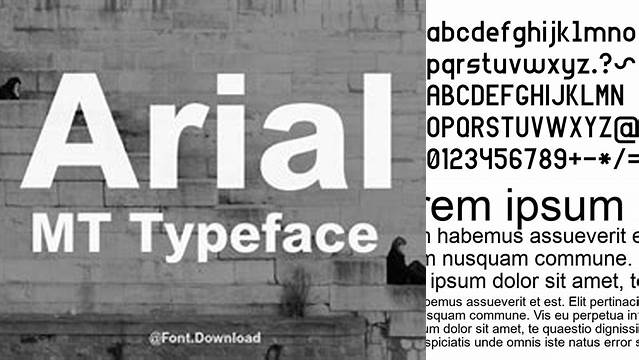
Understanding Arial MT Normal Font: What It Is and Why It's Popular
Hey guys, let's dive deep into the world of fonts, specifically focusing on the Arial MT Normal Font. This isn't just any font; it's a true workhorse in the design world, and chances are you've seen it everywhere, from professional documents to web pages. When we talk about Arial MT Normal Font, we're referring to a specific version of the widely recognized Arial typeface, known for its incredible legibility and clean, sans-serif design. It’s part of the Microsoft TrueType core fonts, which means it was designed for clarity on computer screens, making it an absolute staple. Its popularity isn't by accident, folks. This font was developed by Robin Nicholas and Patricia Saunders at Monotype in 1982, specifically to be a viable alternative to Helvetica, offering a similar aesthetic but with slightly different proportions that some find even more harmonious for digital display. The 'MT' often refers to Monotype, signifying its origin and quality. For anyone looking for an Arial MT Normal Font free download TTF, understanding its foundation is key. It's universally recognized, which makes it an excellent choice for ensuring your message is communicated clearly and consistently across various platforms and devices. The uniform stroke widths and open counters contribute to its high readability, even at smaller sizes. This makes it ideal for body text in documents, presentations, and websites. Designers love it because it’s neutral, doesn’t draw undue attention to itself, and simply works. It's reliable, professional, and versatile, which are qualities that every creator, whether a seasoned pro or a beginner, can appreciate. So, if you're on the hunt for a dependable, clean, and professional font, Arial MT Normal Font is definitely one to consider, and we're here to guide you on how to get your hands on its free TTF version.
The Legacy of Arial MT Normal: Its History and Ubiquity
Alright, let's chat about the fascinating legacy behind the Arial MT Normal Font. You might think of fonts as just, well, fonts, but Arial has a rich history that explains its omnipresence. Introduced in 1982 by Monotype, it quickly rose to prominence thanks to its inclusion in Microsoft Windows operating systems starting with Windows 3.1. This strategic move meant that almost every personal computer user had access to Arial, effectively cementing its place as one of the most widely used fonts globally. Before Arial, Helvetica was the reigning king of sans-serifs, but its licensing costs made it less accessible for widespread digital distribution. Monotype’s brilliant solution was to create Arial, a font that visually resembled Helvetica but was technically distinct and could be licensed more affordably for bundling with software. This move changed the game, guys, making professional-looking typography accessible to the masses. The 'Normal' weight of Arial MT Normal Font became the default for countless applications, from Microsoft Word documents to internet browsers, making it a visual cornerstone of the digital age. Its ubiquity isn't just about availability; it’s about familiarity. People are incredibly comfortable reading text set in Arial because they’ve been doing it for decades. This familiarity translates into high readability and trust, which is invaluable for any communication. For those seeking an Arial MT Normal Font free download TTF, understanding this historical context helps appreciate why this font is so important. It’s not just a set of characters; it’s a foundational element of digital communication, a testament to how intelligent design decisions can shape user experience on a massive scale. Its legacy is one of accessibility, reliability, and quiet dominance, proving that sometimes, the most effective designs are those that seamlessly blend into the background, doing their job perfectly without demanding attention.
Why Choose Arial MT Normal Font? Benefits for Design and Readability
So, you might be asking, why specifically choose Arial MT Normal Font when there are literally thousands of fonts out there? Great question, guys! The answer lies in its unparalleled combination of design utility and sheer readability. First off, its design is incredibly neutral. Unlike highly stylized or decorative fonts, Arial MT Normal Font doesn't carry a strong emotional or aesthetic bias. This neutrality makes it incredibly versatile, suitable for a vast range of applications from corporate reports and academic papers to casual invitations and personal blogs. It simply lets your message shine through without any visual distractions. From a readability standpoint, it’s a superstar. The characters in Arial MT Normal Font are designed with open counters and generous spacing, which means that even at smaller point sizes or on lower-resolution screens, the letters remain distinct and easy to differentiate. This is a massive win for user experience, especially when you’re dealing with large blocks of text. Imagine reading a long article or a dense legal document – a font that causes eye strain is a no-go. Arial MT Normal, with its clear letterforms and consistent stroke widths, minimizes this strain, making for a much smoother reading experience. This makes it an ideal candidate for anyone looking for an Arial MT Normal Font free download TTF for web content, e-books, or professional documents. Furthermore, its widespread availability ensures that your design will look consistent across different computers and operating systems, reducing the dreaded